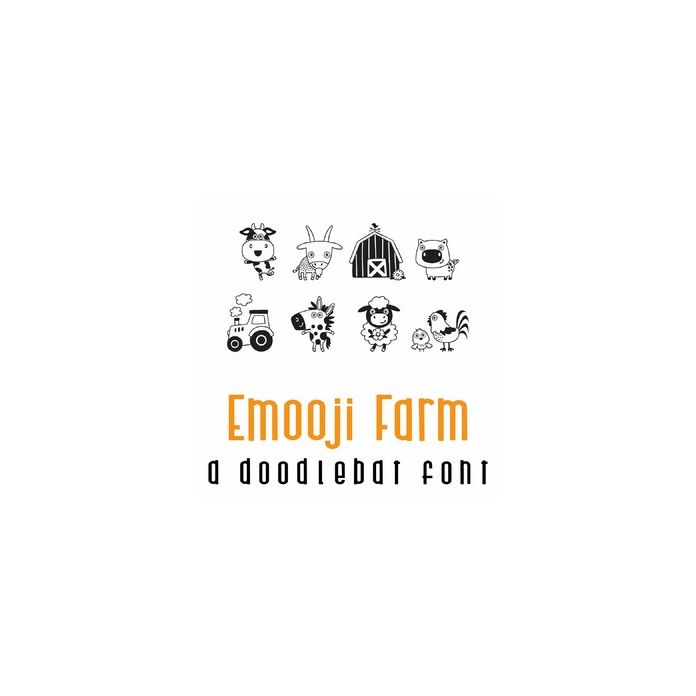
Emooji Farm Doodlebat Font
This fun doodlebat font features 26 farm and animal images. Perfect for cards, crafts, gifts, decor, scrapbook pages, planner stickers and more!